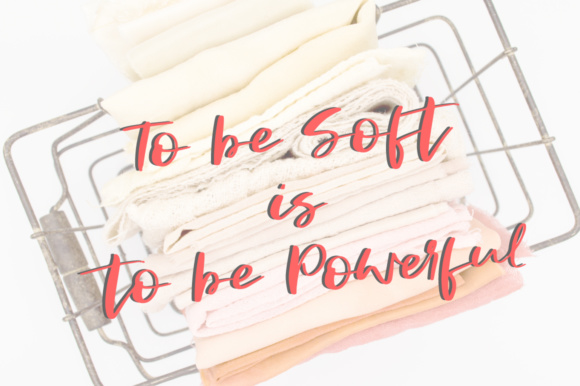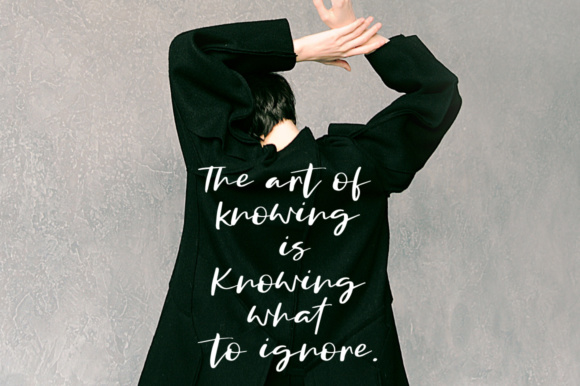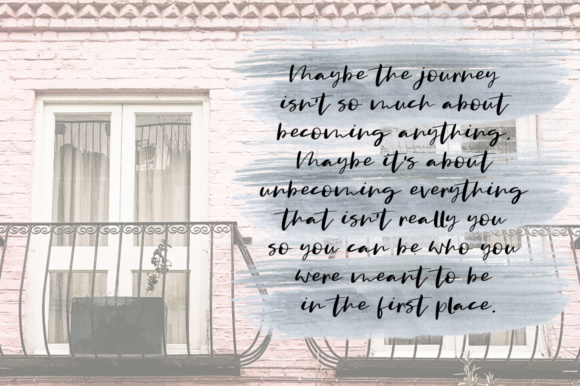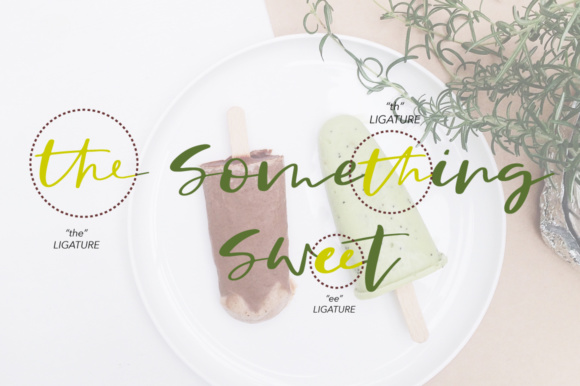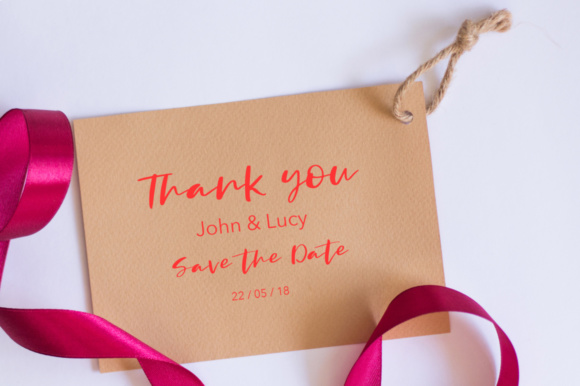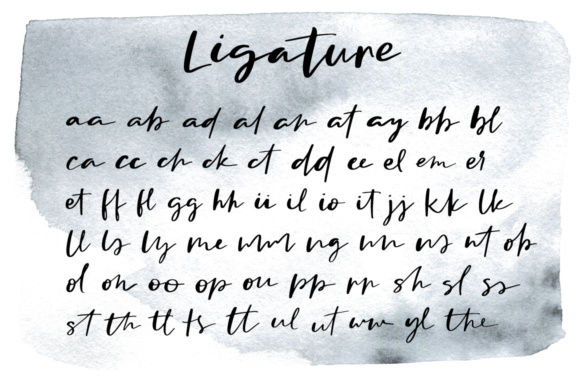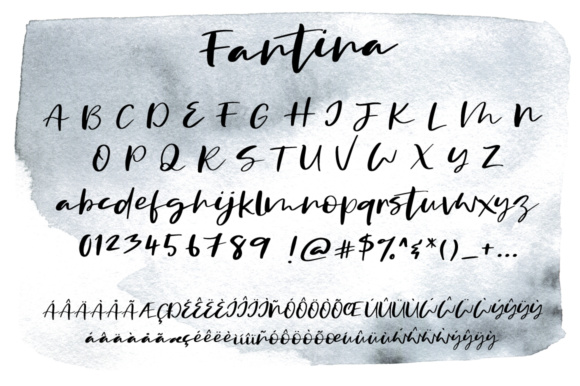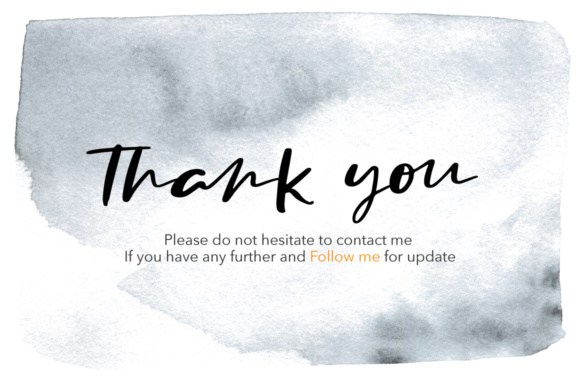
Fantina Font
About Fantina Font
The Fantina is a modern handwritten font script. This elegant font is stylish and versatile, so it can be used in a plethora of designs in both digital and print applications.